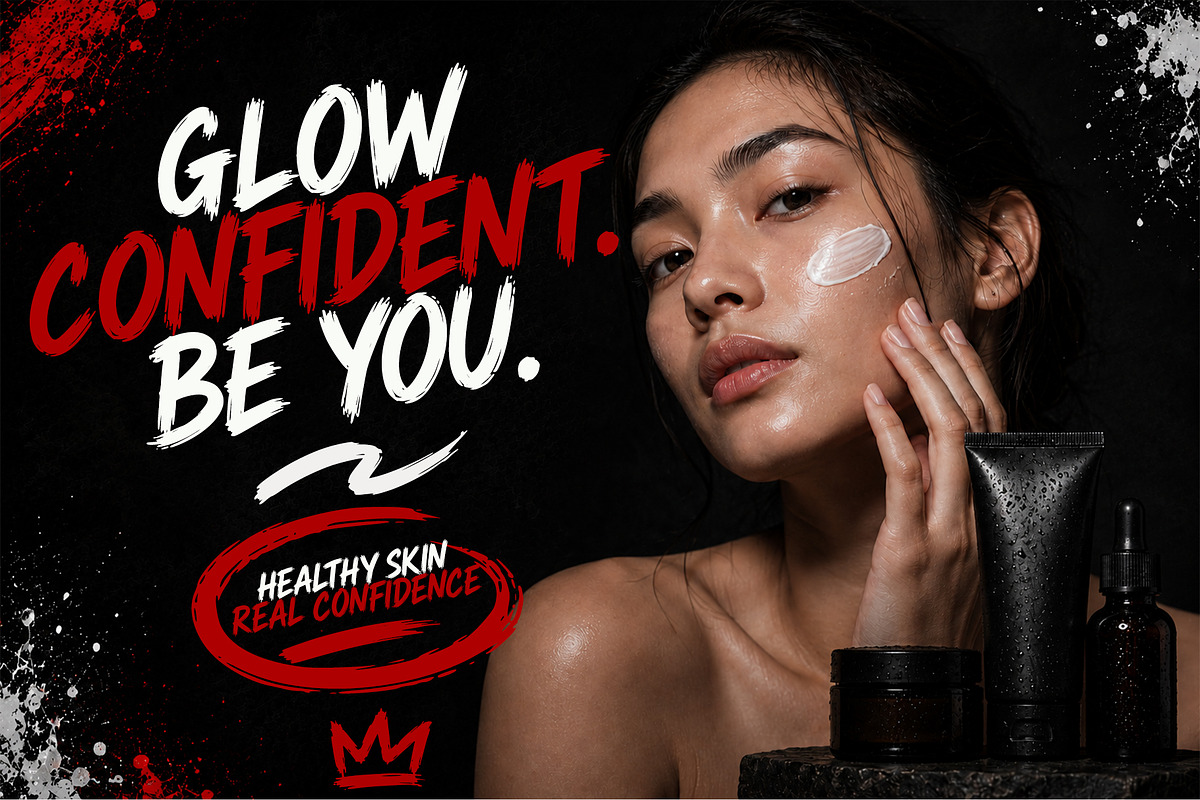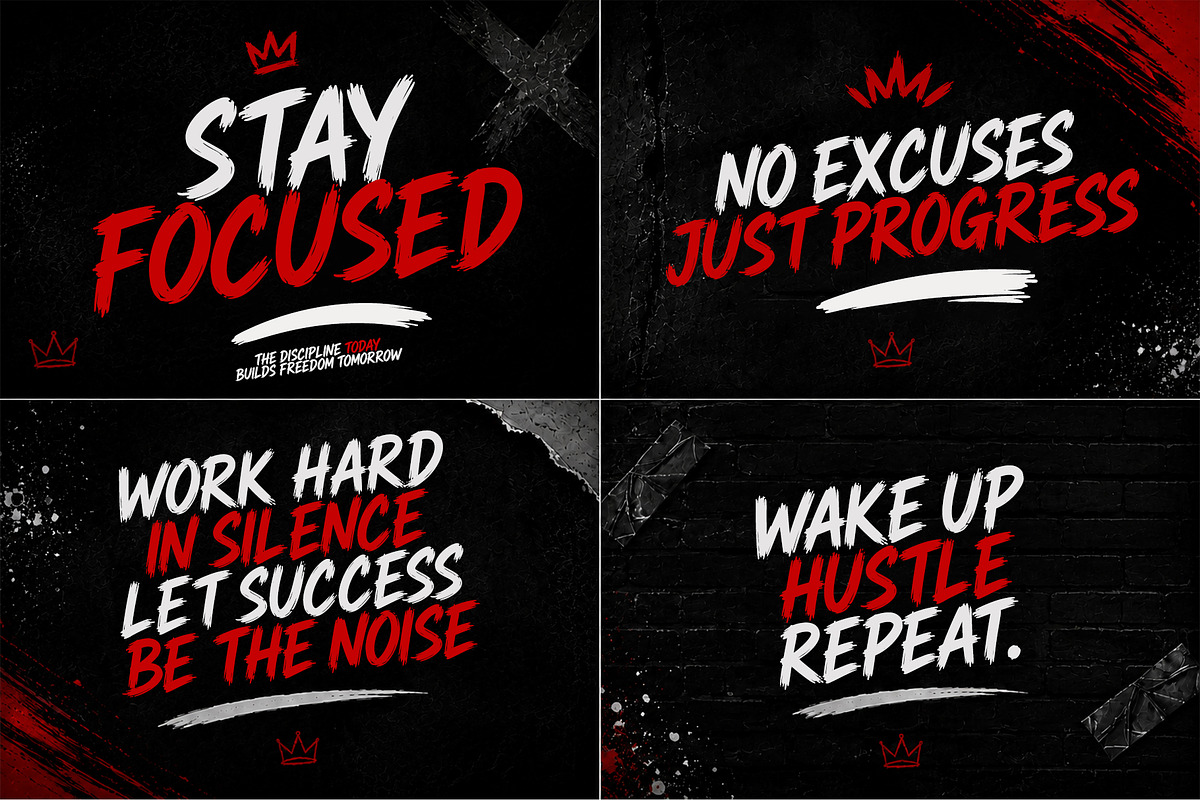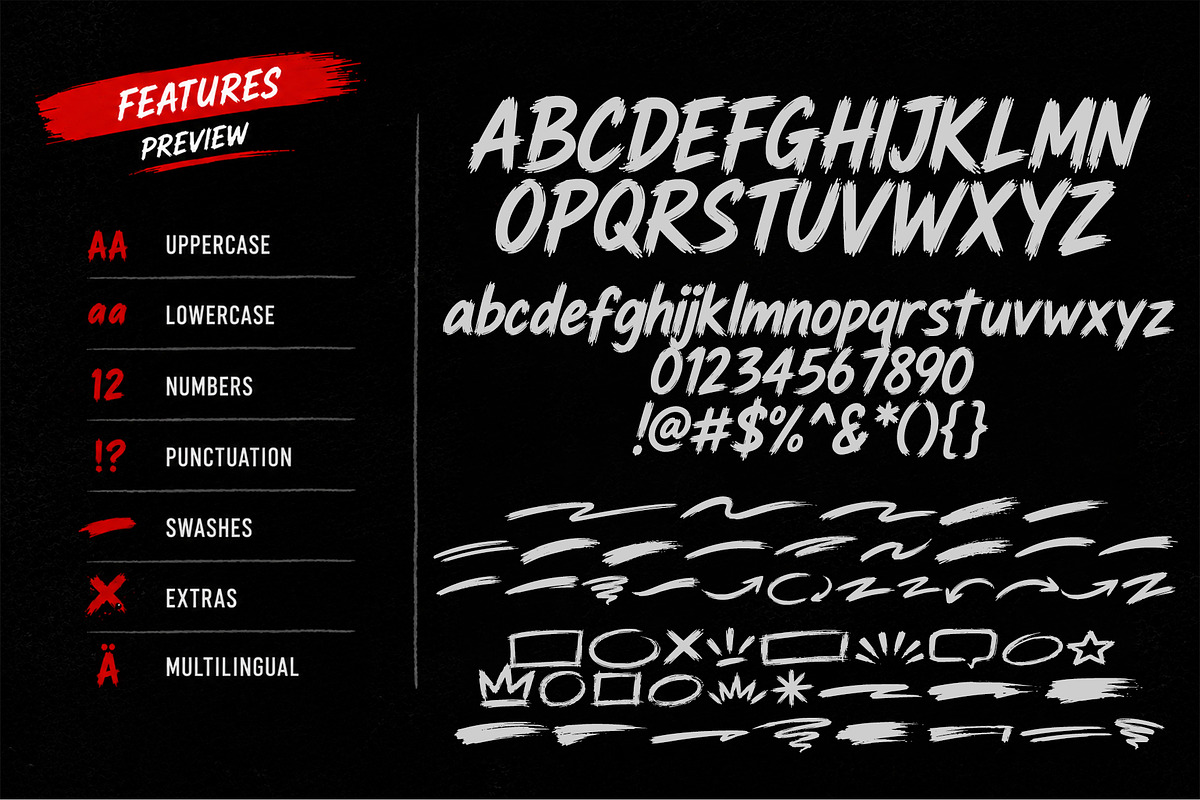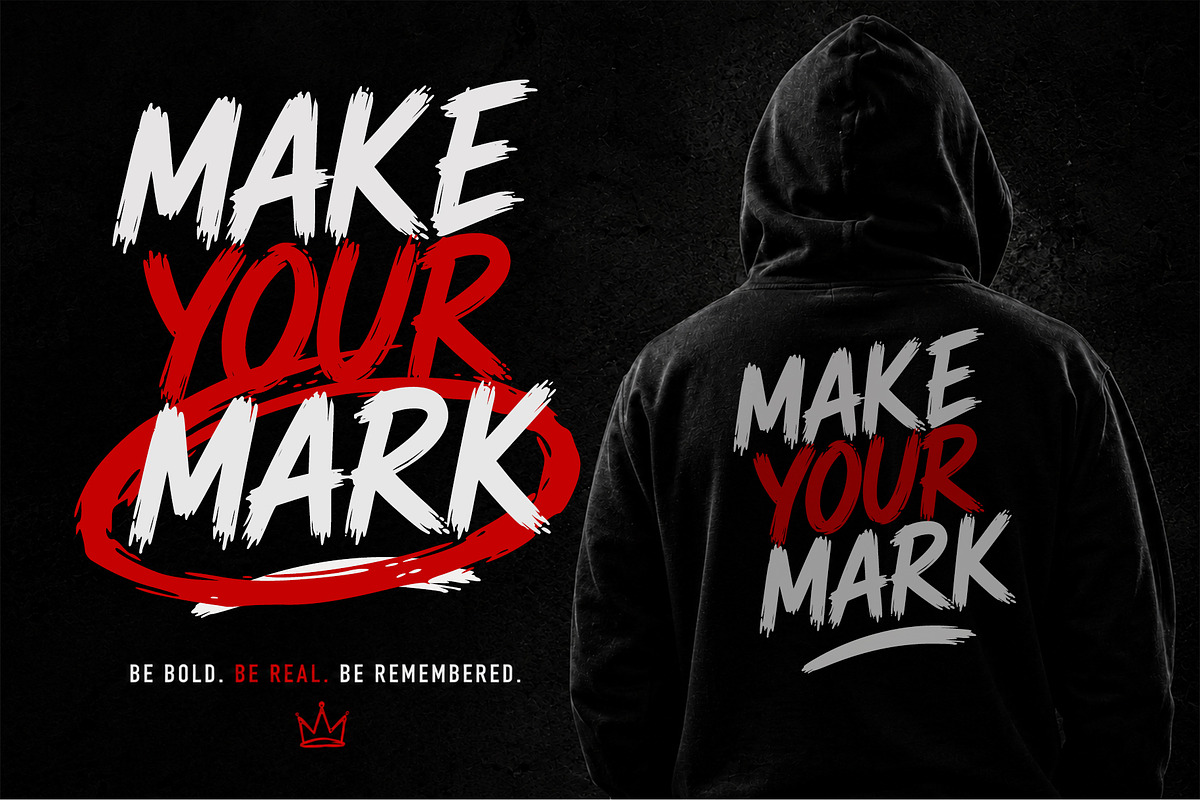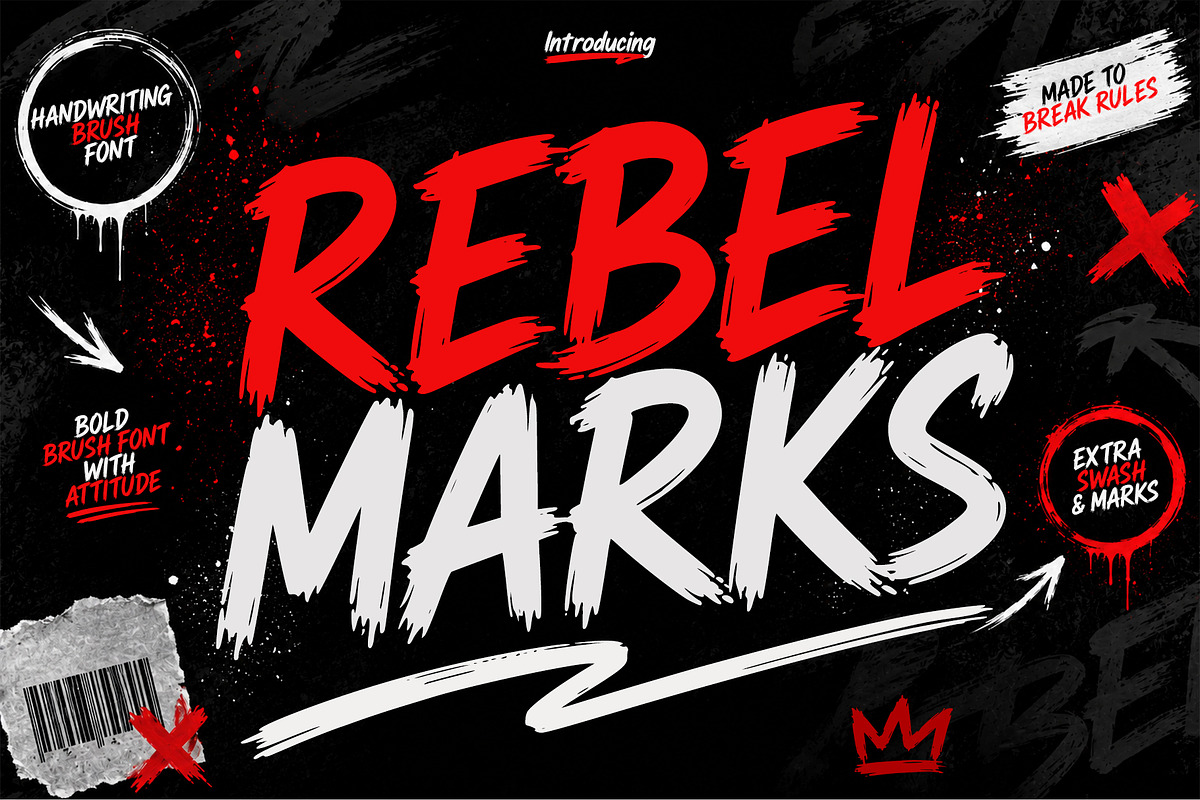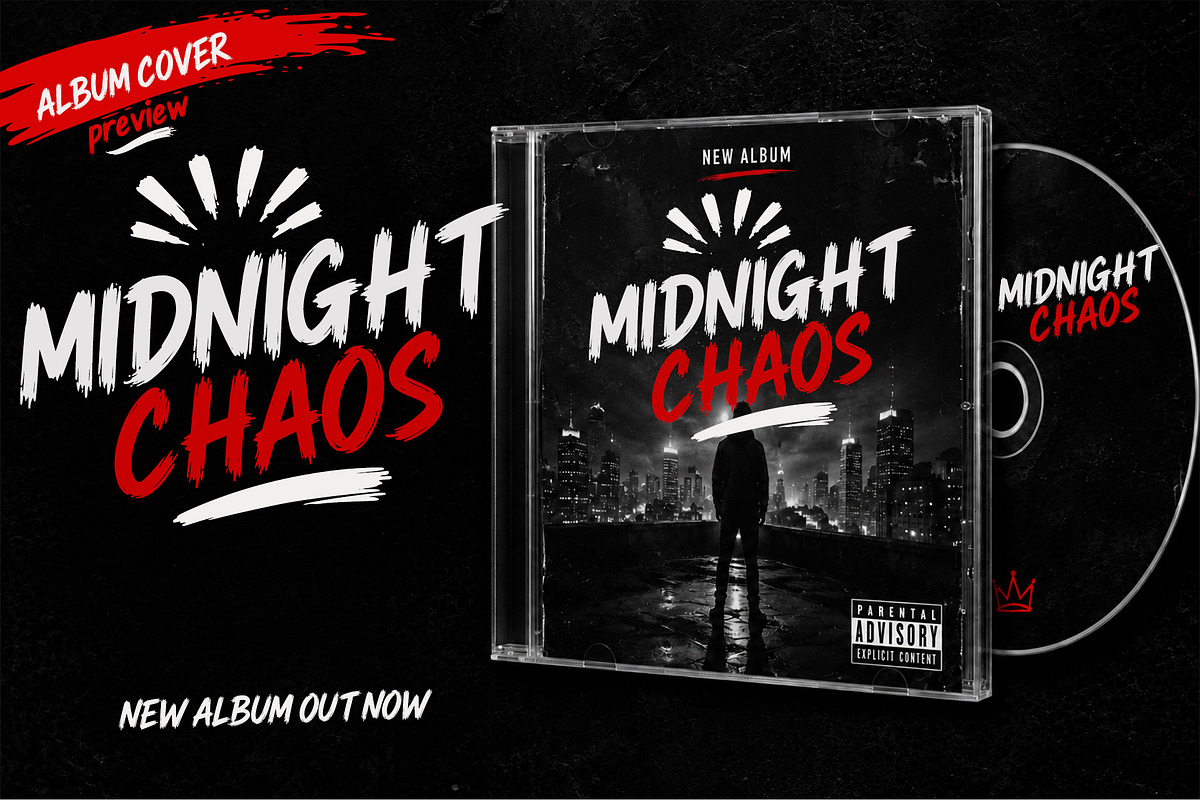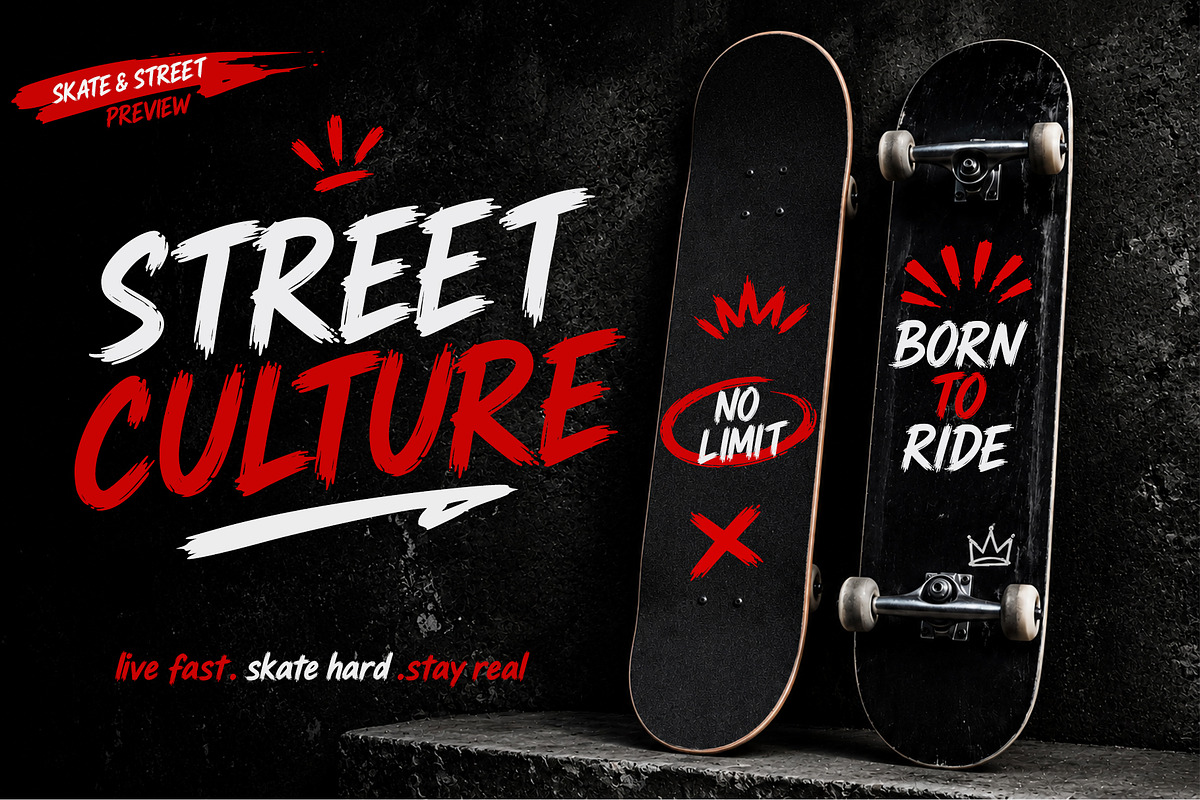
Rebel Marks
Rebel Marks is a bold handwritten brush font crafted to make every design stand out. Built with expressive brush strokes, rough edges, and a natural painted texture, it delivers a strong, energetic look that feels authentic and full of character.
Designed for versatility, this font works beautifully across both print and digital projects. Whether you're creating branding, posters, merchandise, apparel, packaging, social media graphics, advertising, editorial layouts, album artwork, gaming visuals, YouTube thumbnails, or creative marketing materials, Rebel Marks adds a powerful handcrafted touch that instantly grabs attention.
The font includes uppercase and lowercase letters, numbers, punctuation, multilingual support, and stylistic brush details for a complete creative experience. Every character is carefully designed to maintain consistency while preserving the raw, organic feel of real brush lettering.